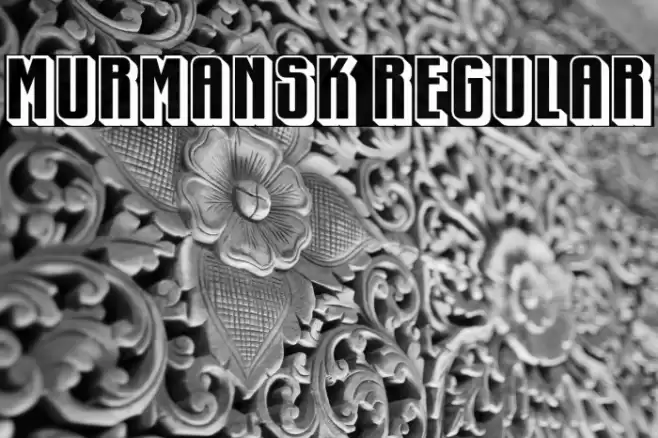
Murmansk Regular Font
Murmansk Regular Description
This font features a bold, geometric design with a strong presence. The characters are blocky and have a three-dimensional effect, achieved through the use of shadowing. The uppercase letters are particularly striking, with a uniform height and width that gives them a solid, impactful appearance. The numbers and special characters maintain this bold style, ensuring consistency across all glyphs. The font's design is reminiscent of vintage signage, making it ideal for projects that require a retro or industrial aesthetic.
A bold, geometric font with a three-dimensional effect, ideal for vintage or industrial designs from Uncategorized fonts.
- Proposed Projects: This font is perfect for poster designs, branding projects, and any creative work that requires a strong, impactful typeface. It would also work well in logo design, especially for brands looking to convey a sense of strength and reliability.
- Overall Style: Vintage